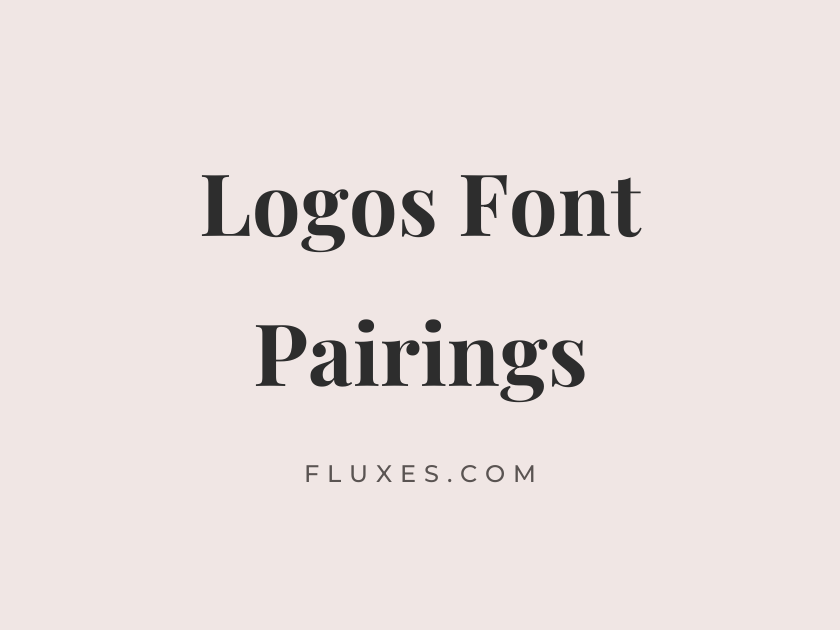
36 Best Font Pairings for Logos
Logo type is a different discipline from paragraph typesetting: a logotype has to hold its shape at a favicon size and still feel intentional stretched across a storefront sign. The pairings below combine a strong identity font with a companion built for taglines, mission statements, and everything else a brand needs to say once the mark has done its job. Each combination is chosen for a specific reason, whether that is contrast in weight, a shared geometric skeleton, or a matching mood, so you can pick one that fits the personality of the brand rather than just the trend.
1. Playfair Display + Lato
Refined branding for boutiques, jewelers, and hospitality groups.
Playfair Display’s high-contrast strokes give a wordmark instant editorial polish, while Lato’s even, low-contrast letterforms keep taglines and addresses easy to scan. The pairing reads as established and confident without tipping into stiff, which is why it turns up so often in fashion and hospitality logo work.
2. Abril Fatface + Nunito Sans
Friendly, rounded body copy that softens a bold display headline.
Abril Fatface is dense and theatrical, so it needs a body font with some warmth to keep the overall brand approachable. Nunito Sans has just enough roundness to soften that contrast, making this combination a favorite for bakeries, cafes, and lifestyle brands.
3. Montserrat + Merriweather
A dependable serif for mission statements and legal fine print.
Pairing a geometric sans mark with a sturdy text serif is a classic move for brands that want to look modern up top and trustworthy underneath. Montserrat’s clean circles work well as a wordmark or monogram, and Merriweather’s generous x-height keeps supporting copy legible at small sizes.
4. Bebas Neue + Work Sans
Straightforward body text built for schedules and pricing pages.
Bebas Neue’s tall, condensed caps are made for badge logos and gym branding where impact matters more than nuance. Work Sans is neutral enough to disappear into the background, letting the display font keep all the attention on the mark itself.
5. Oswald + Open Sans
Clear, versatile text that works across print and digital collateral.
Oswald and Open Sans share similar proportions, so a logotype set in Oswald never feels like a stranger to the body copy sitting below it. This is a dependable, low-risk pairing for logistics, industrial, and civic brands that need to read as no-nonsense.
6. Anton + Karla
A quietly geometric grotesque that balances a very heavy headline.
Anton is about as heavy as display type gets, so it demands a body font with restraint to avoid visual competition. Karla’s slightly quirky details keep it from feeling sterile, which makes this pair well suited to streetwear and sports branding.
7. Archivo Black + Inter
A screen-optimized workhorse for interfaces and product copy.
Archivo Black gives a wordmark real presence at tiny sizes, which matters for app icons and favicons. Inter was built specifically for legibility on screens, so this pair suits tech products and SaaS brands that live mostly in digital form.
8. Fjalla One + PT Sans
A humanist workhorse for signage, forms, and everyday documents.
Fjalla One’s narrow, slightly condensed caps are efficient on signage and vehicle liveries where space is tight. PT Sans keeps its humanist warmth at small sizes, making this combination a strong fit for transit systems and municipal identities.
9. Yeseva One + Mulish
A light, neutral sans that lets ornamental headlines do the talking.
Yeseva One has a hand-finished, slightly vintage character that suits florists, stationers, and small-batch goods. Mulish stays out of the way entirely, which is exactly what a decorative display font needs from its supporting text.
10. Cinzel + EB Garamond
A classical old-style serif for firms built on tradition and trust.
Cinzel’s capital-only, inscriptional forms borrow from Roman lettering, so pairing it with a historic text serif like EB Garamond keeps the whole identity feeling authentic rather than costume-like. This works well for law firms, universities, and heritage brands.
11. Prata + Noto Sans
A neutral grotesque that grounds an elegant serif headline.
Prata carries a lot of delicate detail in its serifs, so it reads best in short logotypes rather than long lines of text. Noto Sans’s plainness gives the eye somewhere to rest, a contrast that suits skincare, jewelry, and interior design brands.
Test any pairing at favicon size before committing. A combination that looks refined at 300 pixels can turn into mush at 16 pixels, which matters for browser tabs and app icons.
Limit most logo systems to one display font and one text font. A third face rarely adds anything and usually just adds inconsistency across touchpoints.
Check the pairing in both color and single-color versions. Many brands need a one-color stamp for embroidery, engraving, or fax cover sheets, and the type should still read clearly without any color contrast to help it.